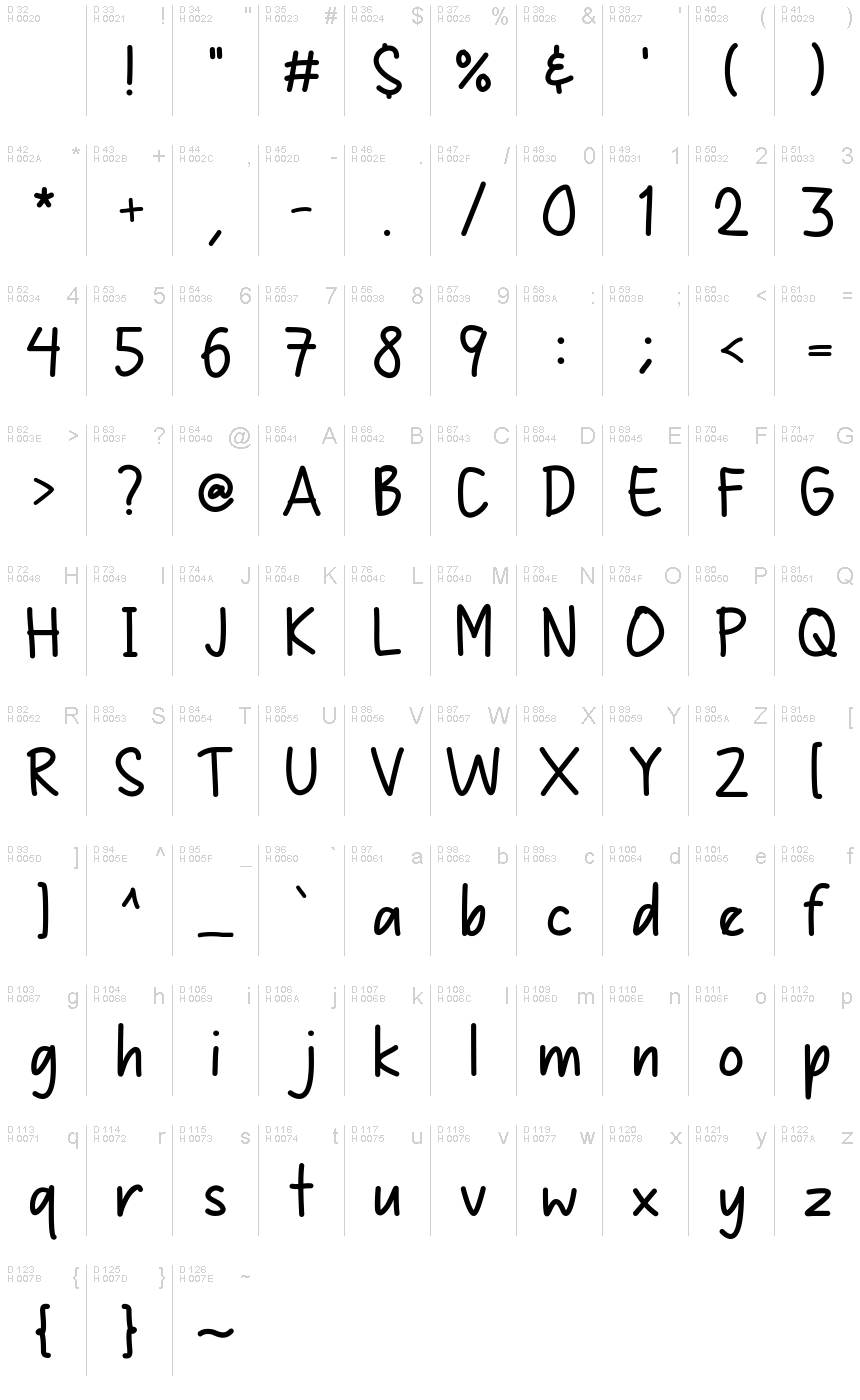
The Unleashed Dreams Alternate
The Unleashed Dreams is a captivating handwritten font that exudes a sense of whimsy and unbridled creativity. Its fluid, organic strokes evoke the spontaneity of an artist's hand, conveying a dreamlike quality that is both visually striking and emotionally resonant.
This font's versatility shines through its ability to seamlessly blend the boundaries between artistic expression and practical application. From vibrant branding and editorial layouts to heartfelt wedding invitations and personal stationery, The Unleashed Dreams effortlessly elevates any design, infusing it with a touch of enchantment and raw, emotive charm.